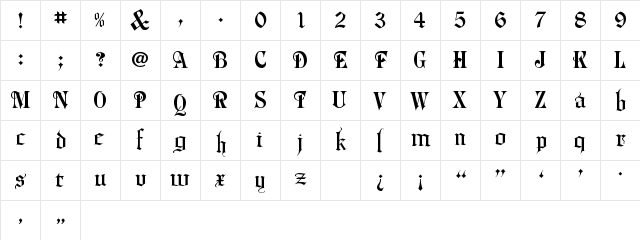
Phalyn Regular Free Font
Phalyn Regular
Foundry: Refuge Graphix
Designer: Refuge Graphix - Forrest Coe
Design Context for Phalyn
Phalyn is a composed and adaptable typeface that performs quietly and consistently across a wide range of design contexts.